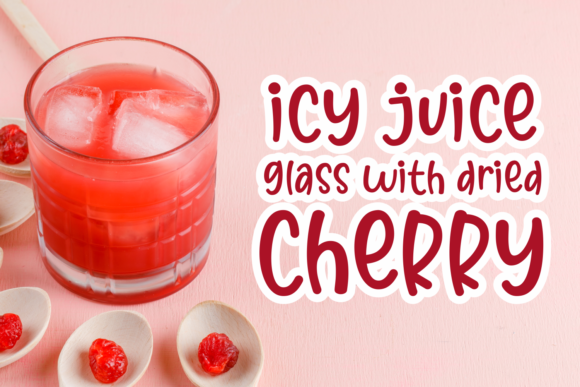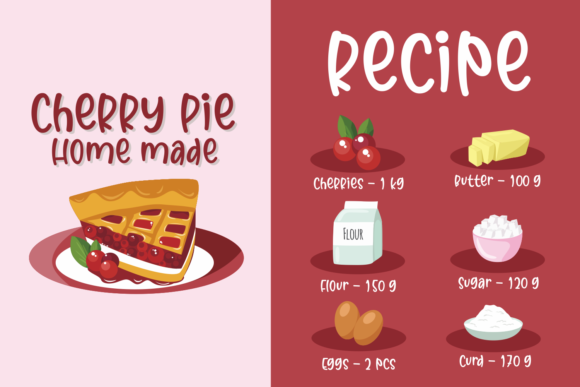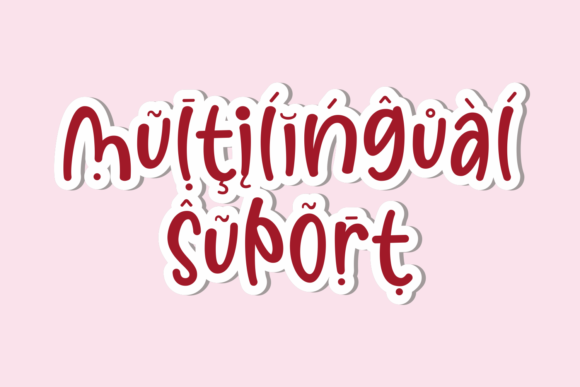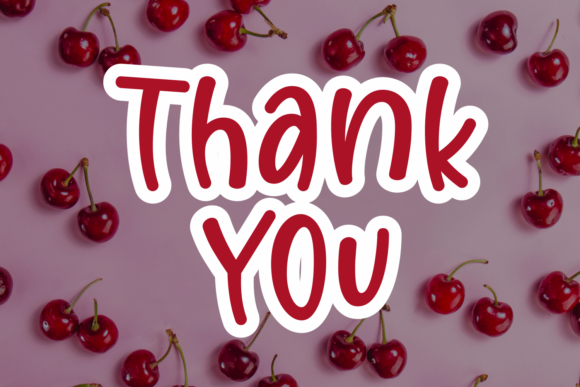
Introduction to Cherry Organic Font
Do you remember that moment when a burst of creativity hits you, and you can’t wait to bring your idea to life? For designers, this feeling is a regular occurrence, but sometimes, all it takes is the right tool to spark that initial spark. That’s where the Cherry Organic Font comes in – a chic, fun, and quirky display font that’s perfect for adding a personal touch to any branding project.
As a valuable addition to any designer’s arsenal, the Cherry Organic Font offers high-quality characters that are free to download and use as a design resource. With its transparent background, this font is ideal for creative projects that require a touch of elegance and whimsy. Whether you’re working on a logo, t-shirt printing, or any other creative product, the Cherry Organic Font is sure to elevate your design and leave a lasting impression.
Key Features of Cherry Organic Font
- High-quality, hand-drawn design for creative projects
- Perfect for design resources such as logos, branding, and packaging
- Includes 6 unique styles and 26 characters for extensive creative freedom
Honest Review: Cherry Organic Font
As a designer, I’m always on the lookout for high-quality design resources that can elevate my creative projects. Recently, I stumbled upon the Cherry Organic Font, and I must say it’s a great addition to my design library.
What works well: ✨ The font is incredibly versatile and works well in both digital and print projects. The transparent background makes it easy to customize and pair with other design elements. The font is also free to download, which is a definite bonus for designers on a budget.
- ✨ High-quality design with smooth lines and elegant curves
Limitations: ⚠️ While the font is generally well-behaved, it can be a bit tricky to use in smaller font sizes. Additionally, the font family is relatively small, which may limit its versatility in certain design applications.
Overall impression: I’m really impressed with the Cherry Organic Font. It’s a great addition to any designer’s library, and its high-quality design and transparent background make it a pleasure to work with. If you’re looking for a reliable font for your creative projects, I’d definitely recommend giving it a try.
Getting the Most Out of Cherry Organic Font
Some tips for getting the most out of the Cherry Organic Font include using it in conjunction with other high-quality design elements, such as vectors and illustrations. You can also use this font to create a consistent brand identity for your business or personal project.
The Cherry Organic Font is a versatile design resource that can be used in a wide range of creative projects, including social media graphics, presentations, and documents. It’s perfect for designers who want to add a touch of elegance and sophistication to their designs.